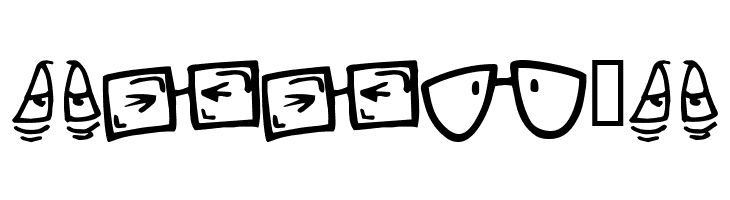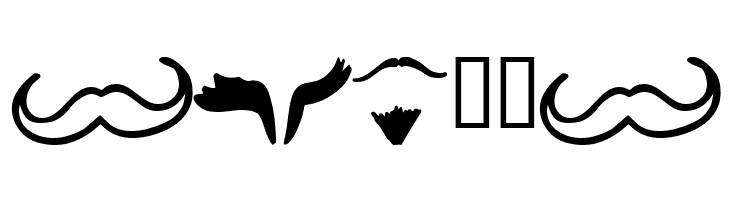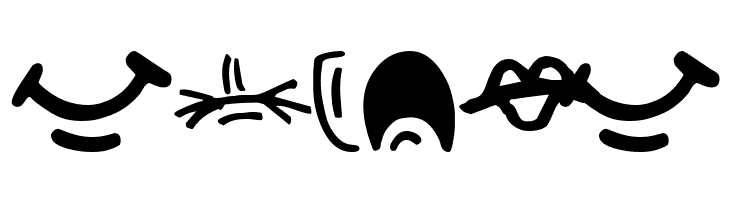
( Perry Mason )
A decorative font made up of diverse cartoon eye illustrations.
( Perry Mason )
A quirky dingbat font of hair and facial hair illustrations.
( Perry Mason )
A decorative font made of hand-drawn facial feature illustrations.